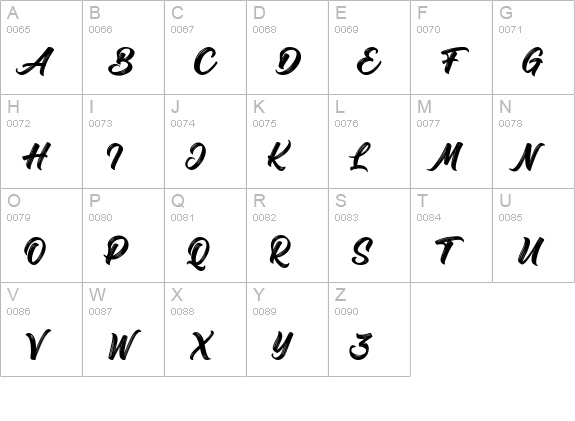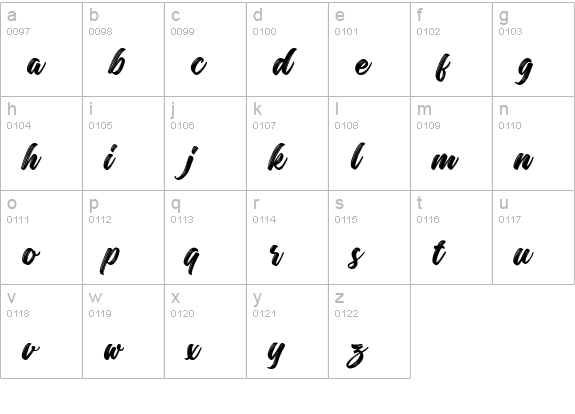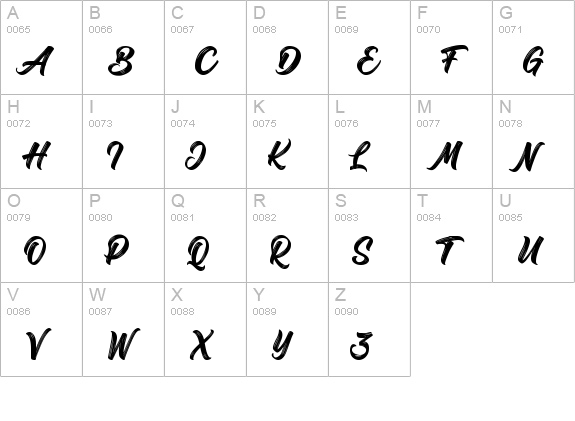
Margadeth Bold Script is a strong, high-contrast variant in the Margadeth typeface family \xE2\x80\x94 well suited to headlines, attention-grabbing titles, and strong calls-to-action.
Introducing Margadeth Bold Script font, a stunning display of elegance and sophistication. This script typeface exudes a sense of luxury and style with its bold and flowing letterforms. Perfect for creating eye-catching designs, Margadeth Bold Script font is ideal for branding, packaging, invitations, and more.
This versatile font is designed to stand out and make a statement while maintaining a sense of refinement. Whether used for logos, headlines, or other design projects, Margadeth Bold Script font will elevate your work to new heights.